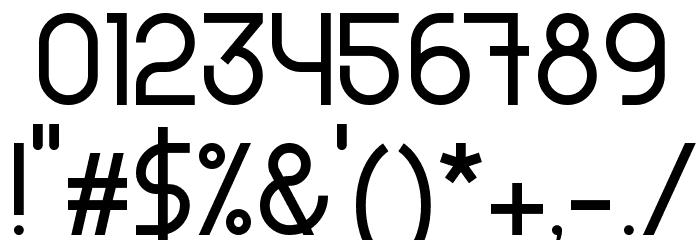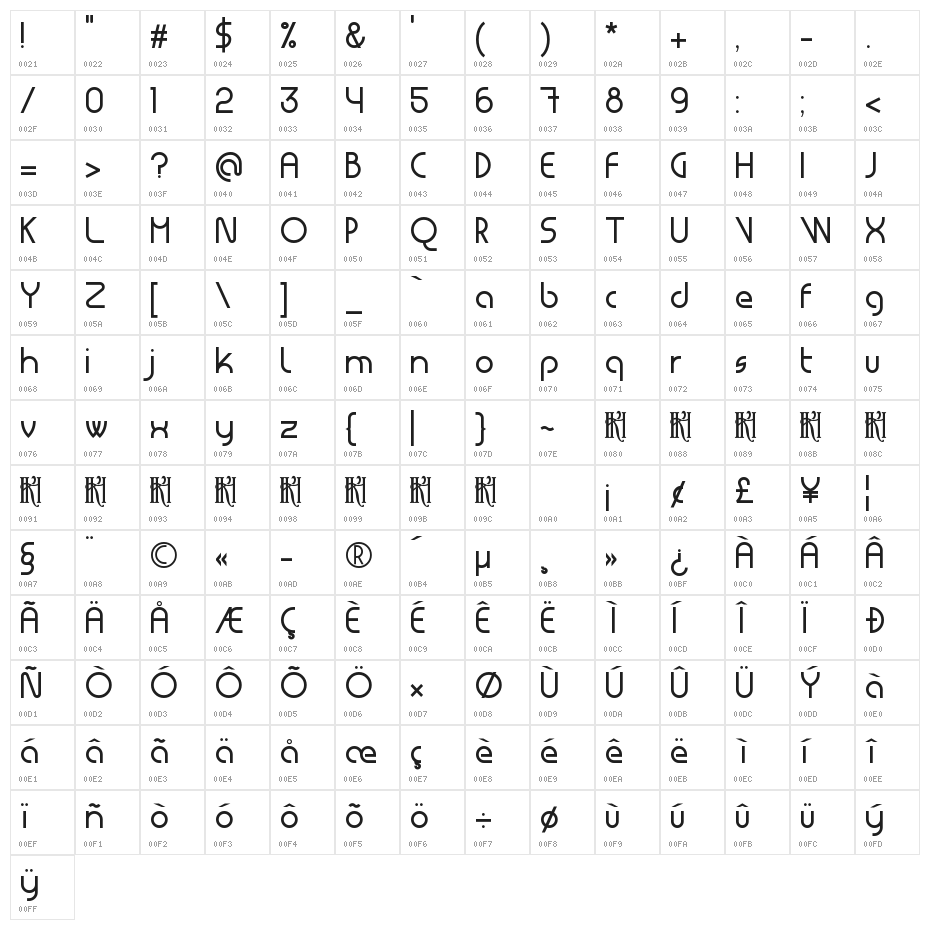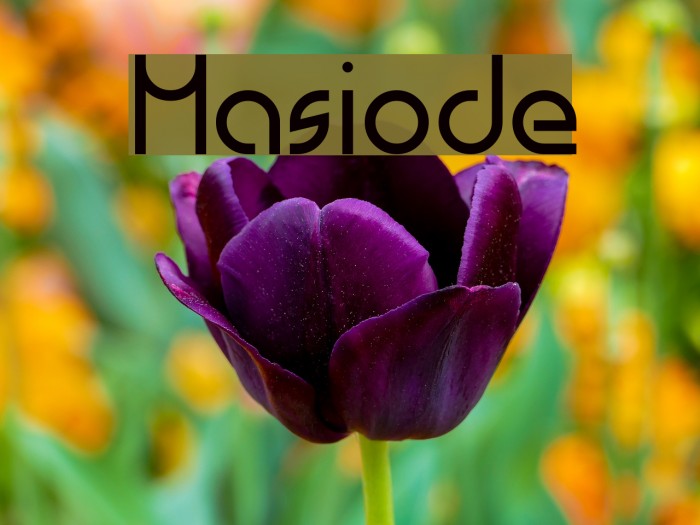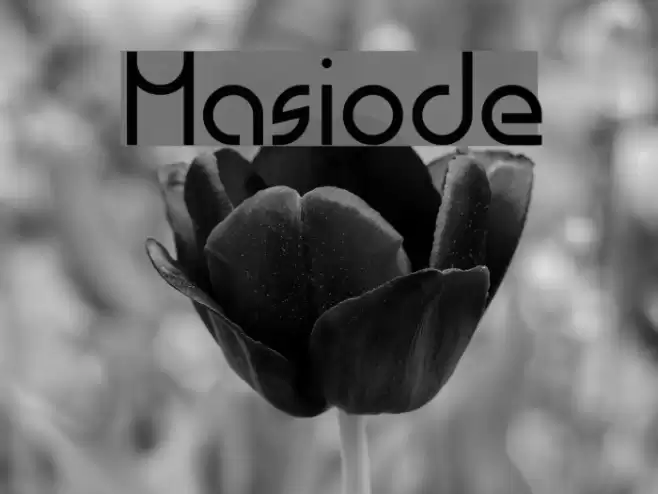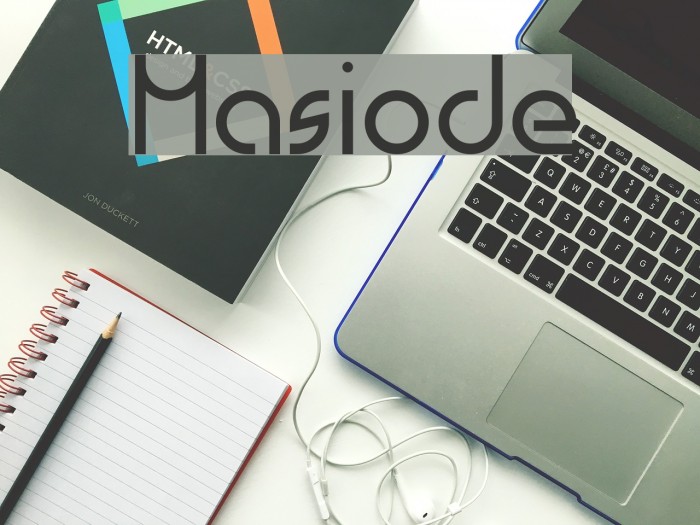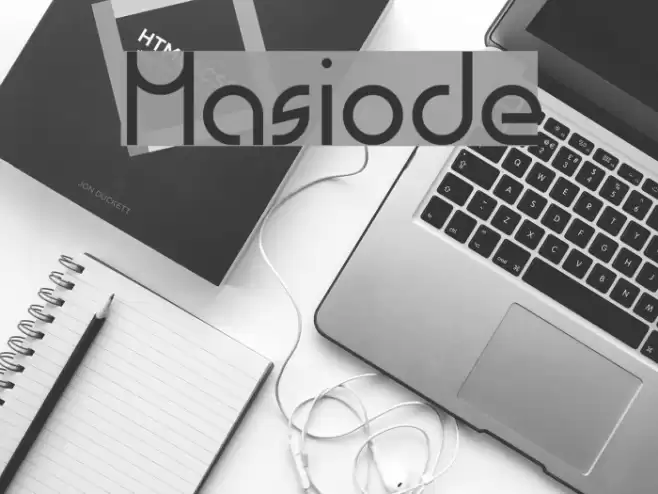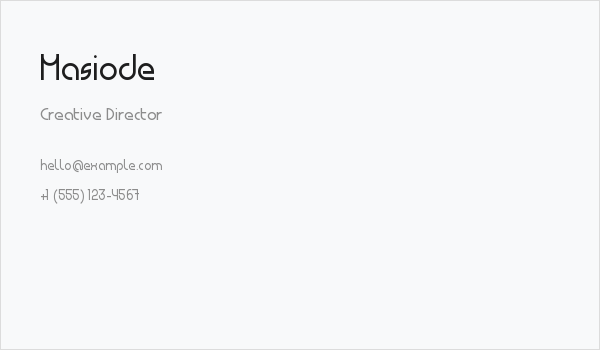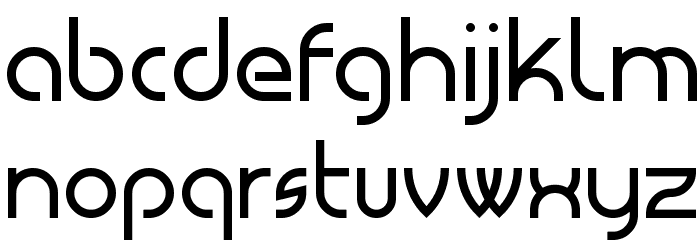
Masiode Font
Masiode Description
This font features a modern and sleek design with clean lines and a geometric structure. The uppercase letters are bold and uniform, while the lowercase letters maintain a consistent style with rounded edges and a slightly condensed form. The numerals are clear and easy to read, matching the overall aesthetic of the font. Special characters are well-integrated, providing a cohesive look across all symbols. The font's design is both functional and stylish, making it suitable for a variety of applications.
MASIODE UPPERCASE
MASIODE LOWERCASE
MASIODE OTHER CHARS
| Use Case | Headlines, Logos, Digital media |
| Proposed Projects | Ideal for branding, advertising, and digital media projects that require a contemporary and professional look. |